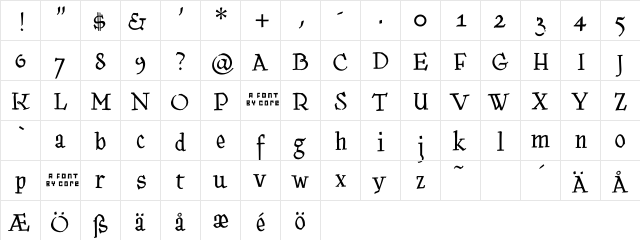
Kantor Regular
Design Context for Kantor Typeface
Kantor is a composed and adaptable typeface that performs quietly and consistently across a wide range of design contexts.